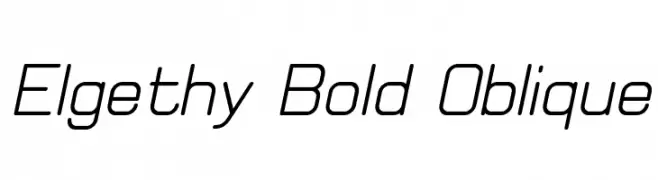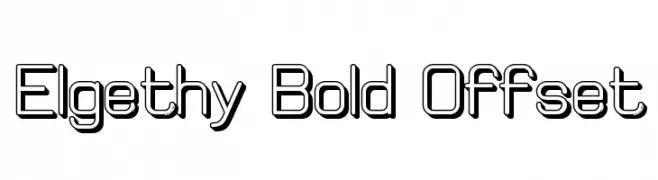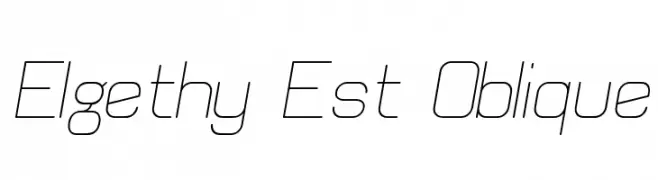
A decorative dingbat font with whimsical and thematic icons.
An elegant script font with flowing, ornate swashes and flourishes.
A bold, 3D-effect font with a playful and striking appearance.
A bold, playful font with rounded edges and dot embellishments.
A bold, italicized font with a dynamic and modern style.
A sleek, modern oblique font with consistent stroke width and rounded edges.
A bold, geometric font with a unique offset outline for a modern, three-dimensional look.
A modern, oblique font with uniform stroke width and rounded edges.
A modern, oblique font with thin, consistent strokes and a minimalist design.
A bold, modern font with a unique offset outline and geometric design.